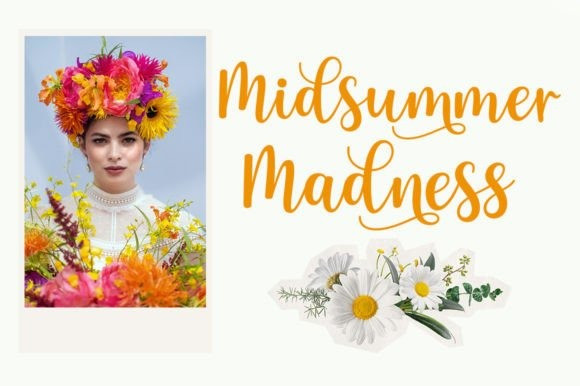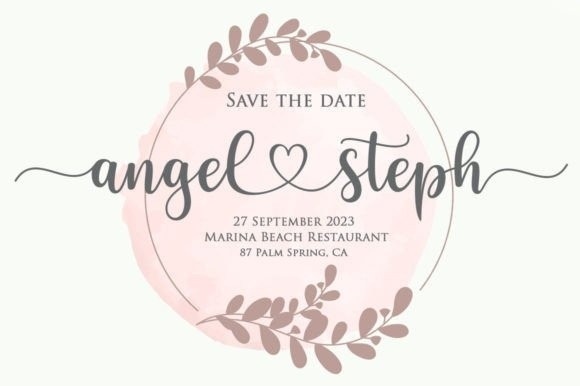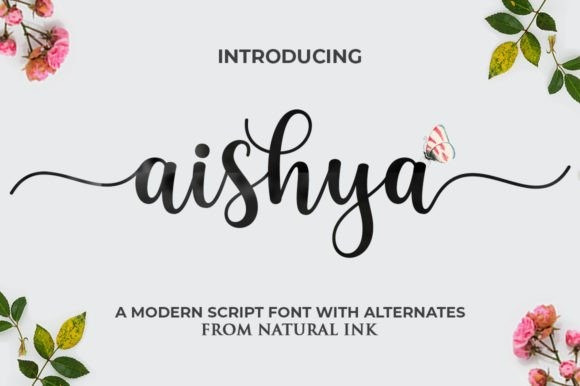
Aishya Font
Aishya Font by Natural Ink 22,611 downloads
Aishya Font
Aishya Font is a beautiful and refined script font. It has a classy, elegant, and modern look that can be used for logos, branding, invitations, stationery, wedding designs, social media posts, and much more!